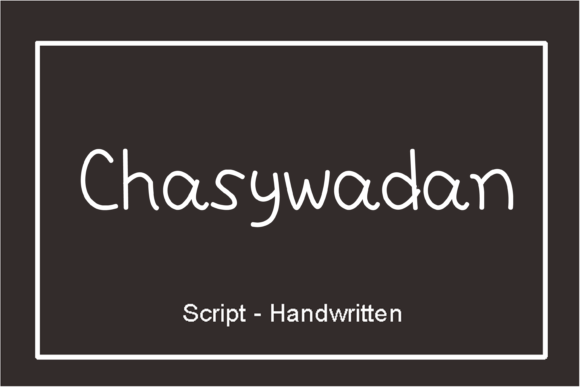
Embrace the allure of Chasywadan Font, a captivating script that exudes charm and individuality. Its casual handwritten strokes and subtle quirks infuse your designs with a touch of whimsy and authenticity.
Unleash your creativity with this versatile font, meticulously crafted to elevate your:
- **Logos:** Create eye-catching logos that leave a lasting impression.
- **Branding:** Establish a cohesive and memorable brand identity.
- **Social Media:** Engage your audience with captivating social media posts.
- **DIY Projects:** Add a touch of handmade charm to your creative endeavors.
Indulge in the beauty of Chasywadan Font, where every letter dances with a unique personality. Let your words flow effortlessly, adorned with the elegance and charm of this exquisite script. Experience the transformative power of Chasywadan Font today!